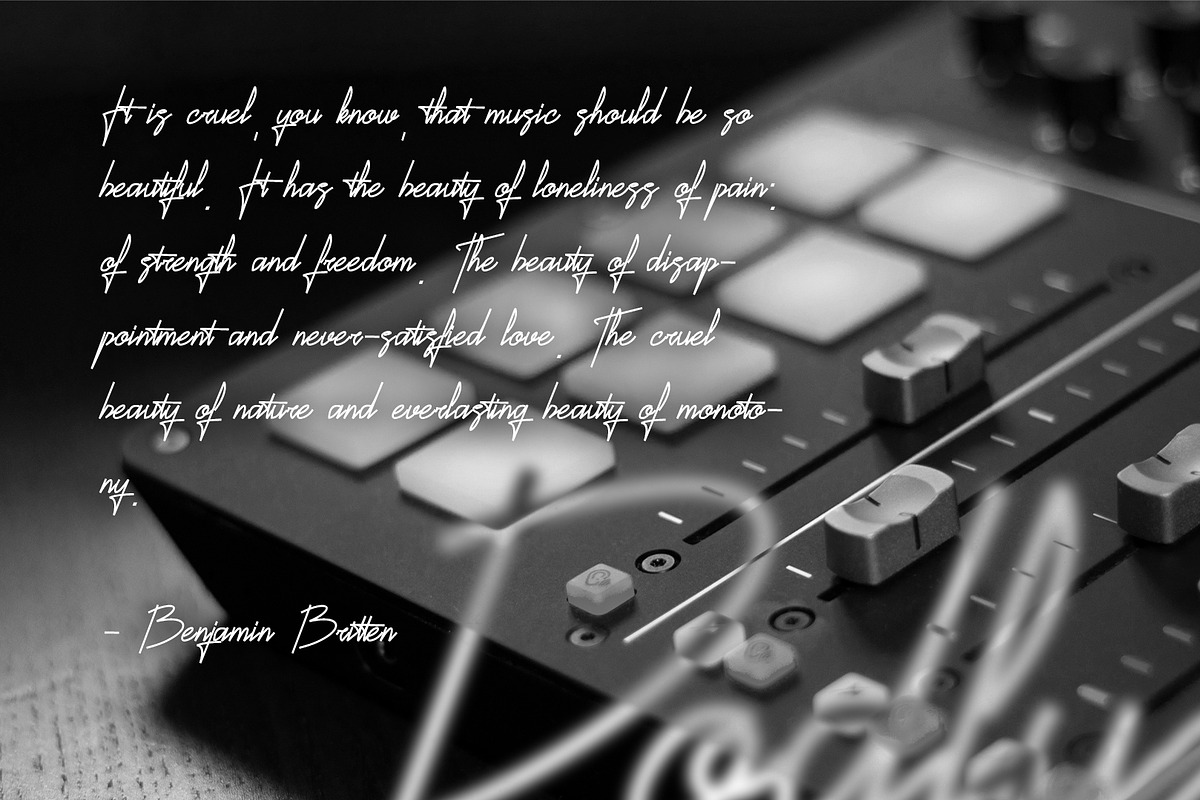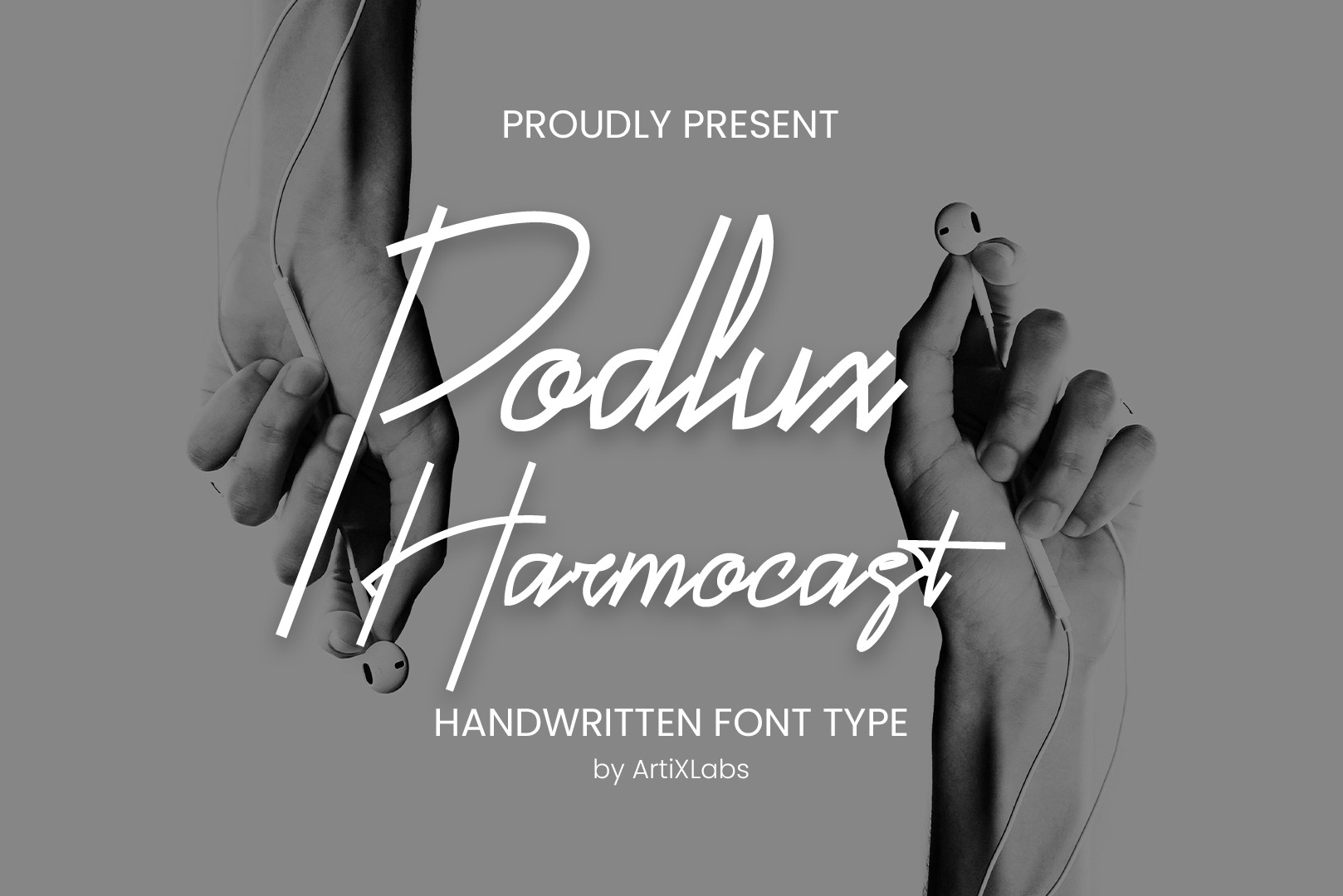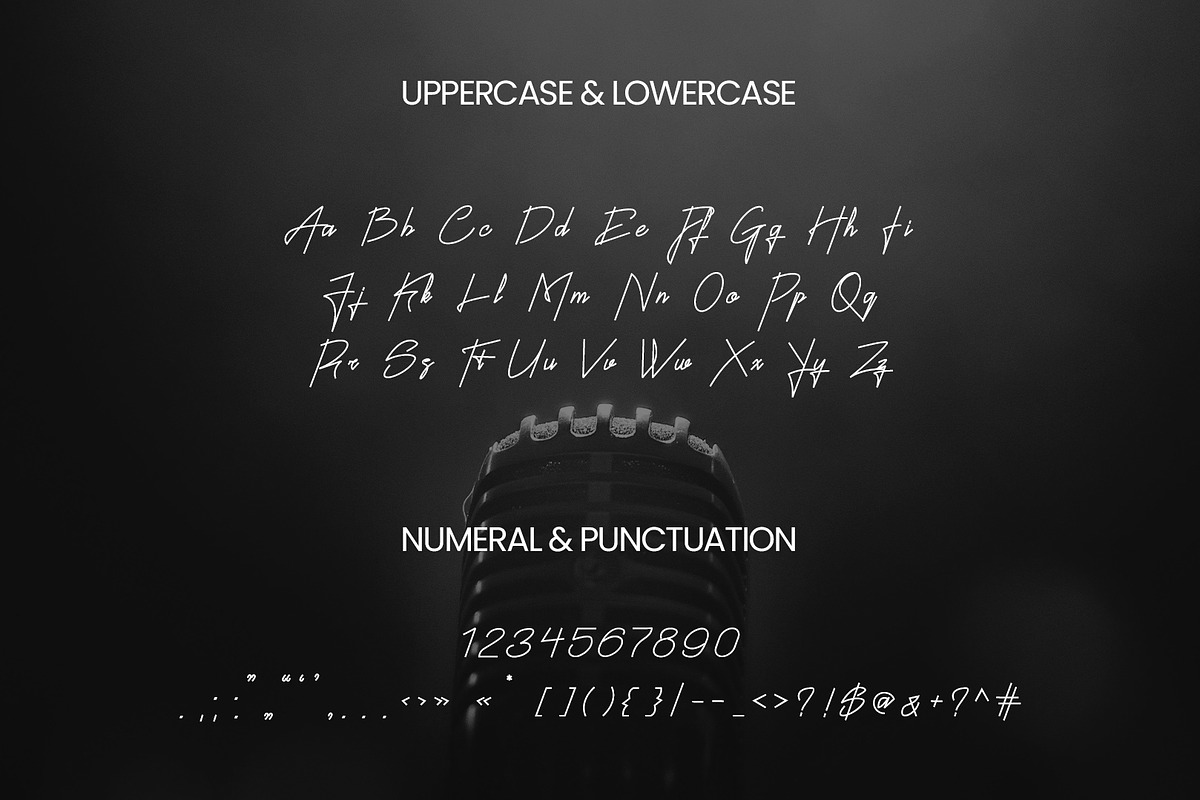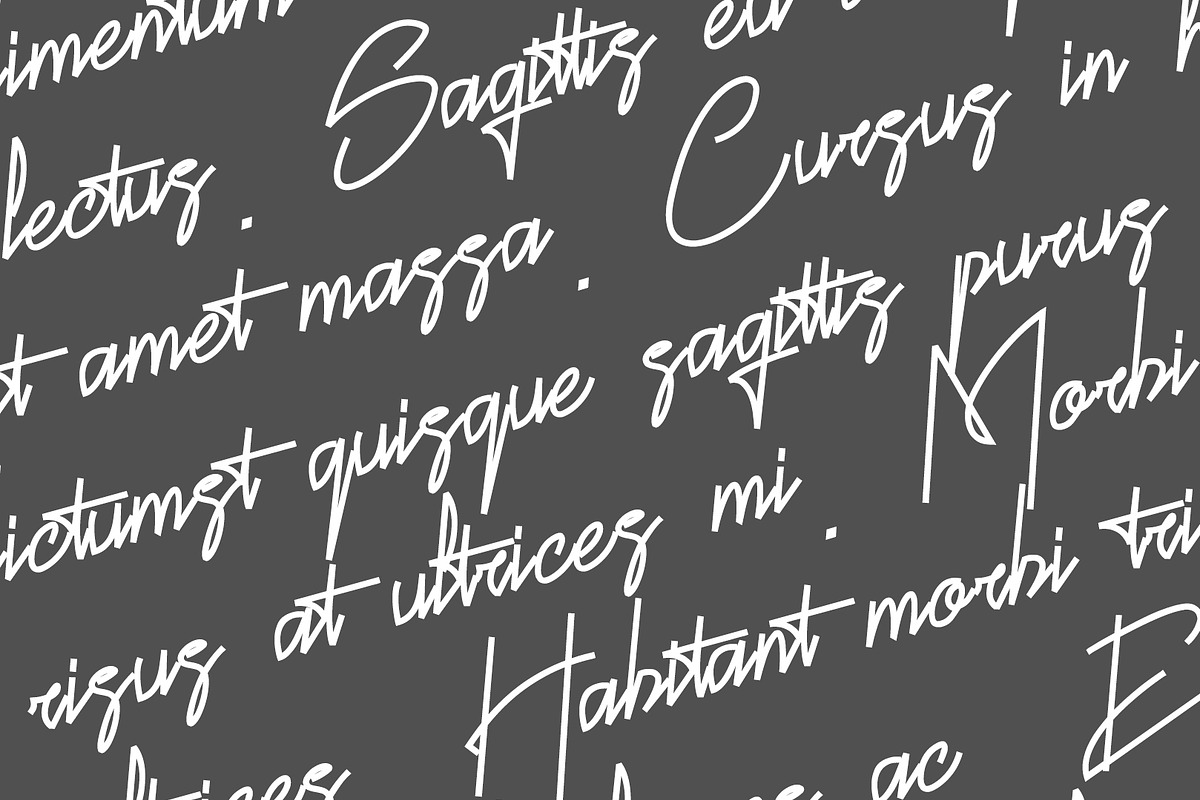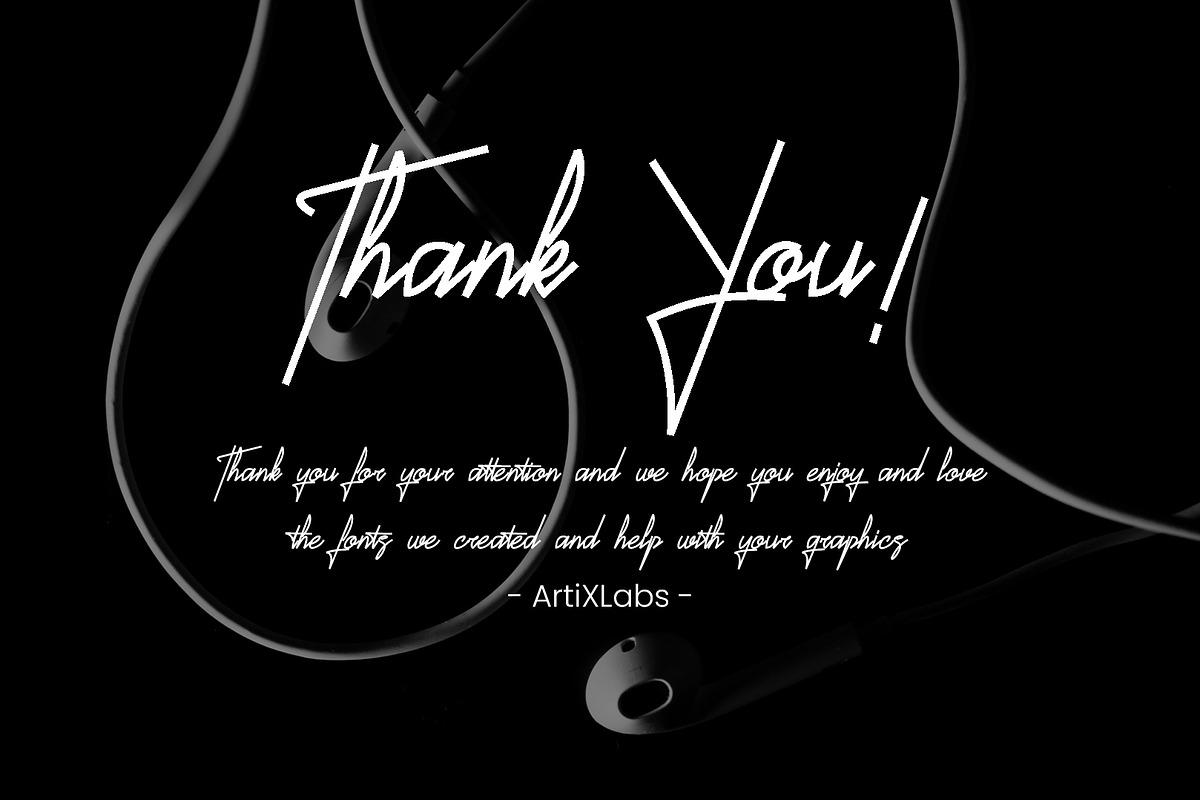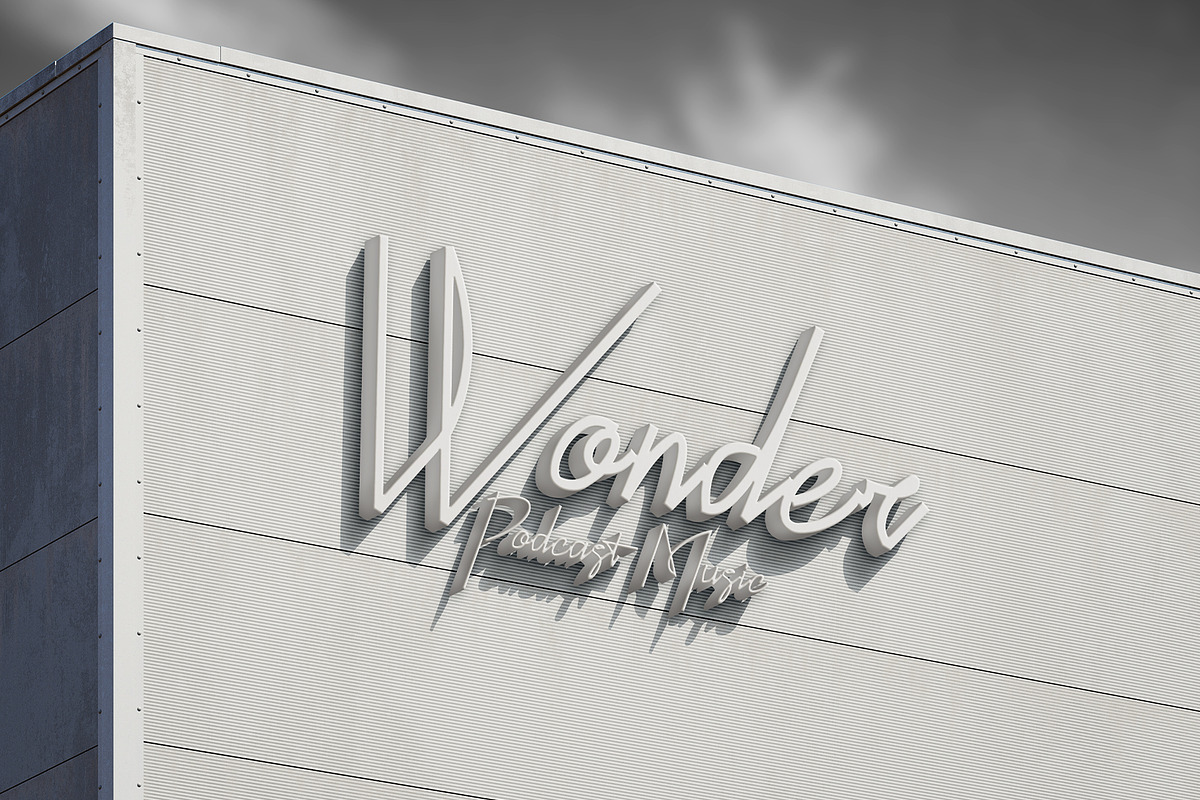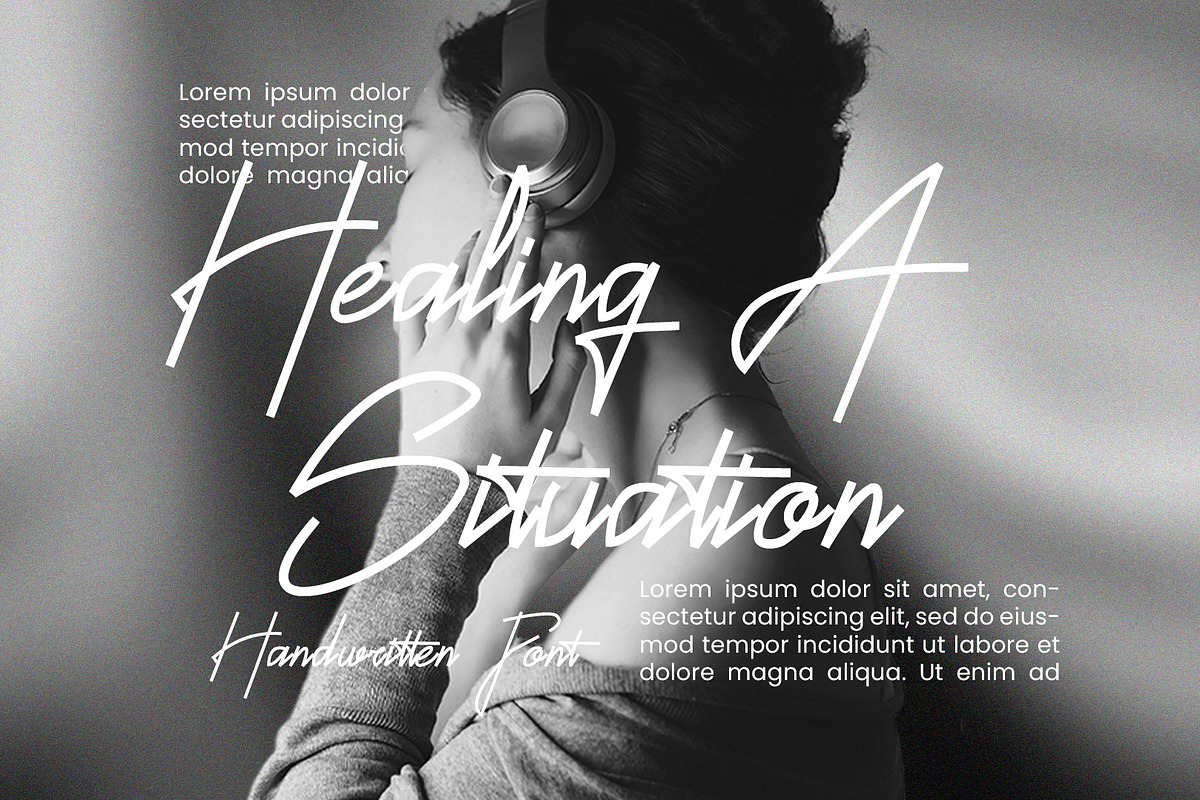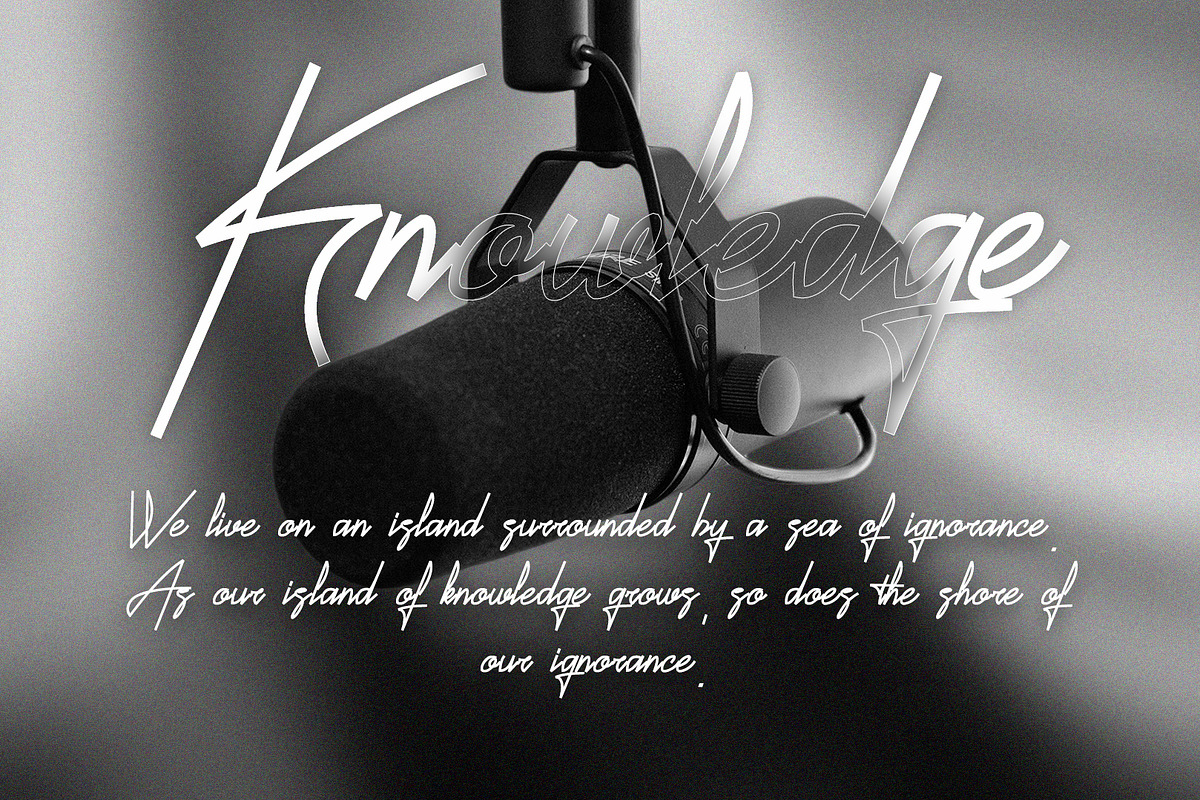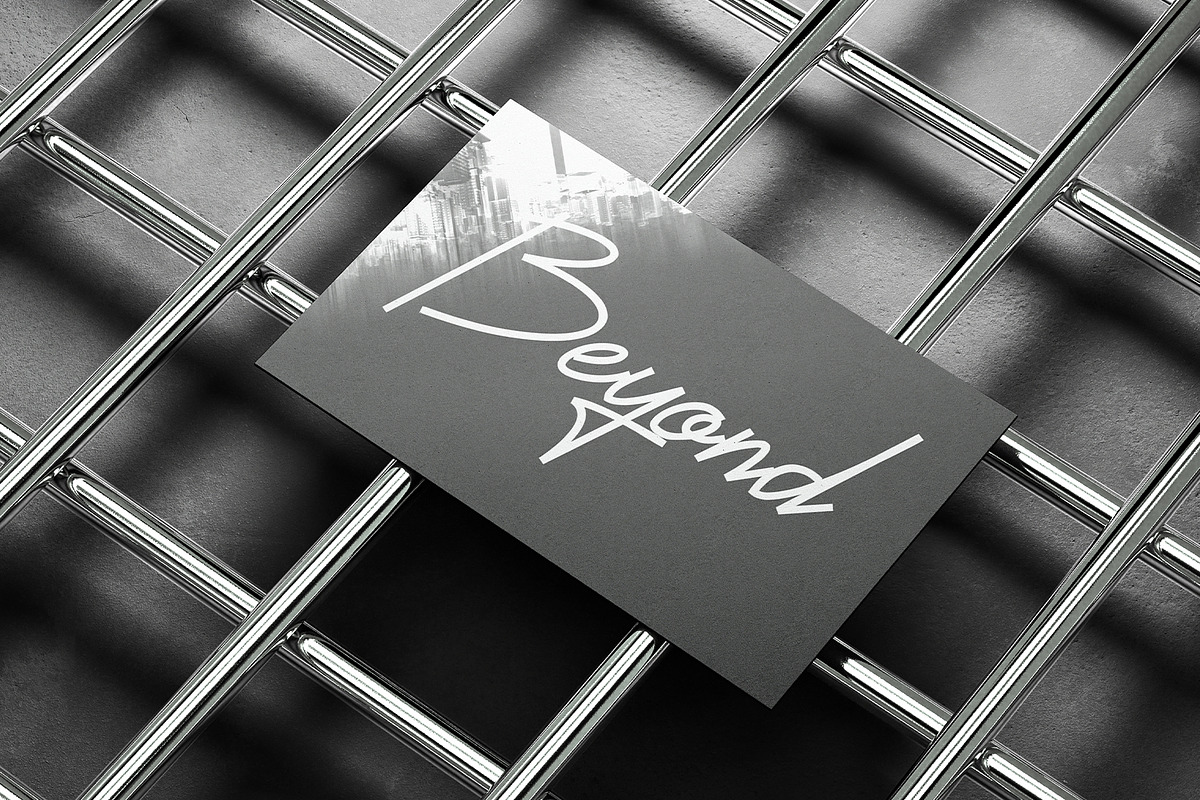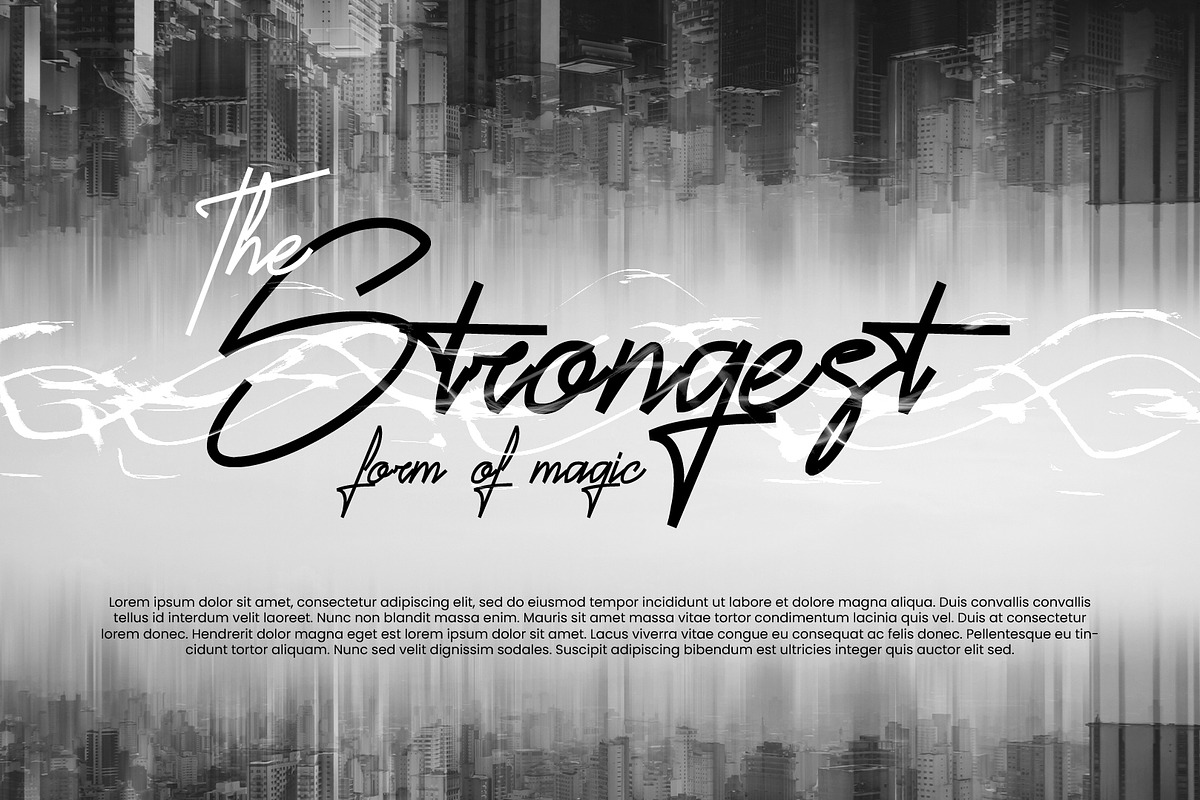
Podlux Harmocast - Handwritten Font
Introducing Podlux Harmocast - Handwritten Font Elegant Script Font for Wedding Invitations & Branding
Podlux Harmocast is a beautifully crafted handwritten script font that exudes elegance and charm. Perfect for wedding invitations, branding projects, and social media content, this font adds a personal and sophisticated touch to any design. Its natural flow and readability make it ideal for creating memorable logos, product packaging, and romantic stationery. This Font can be used for any variety of purposes, such as: Event, Birthday, Ceremony, Packaging Products, Logo Type, Branding, T-Shirt Design, Website/Blog, Headline Magazine, Brochures and also can be used for other purpose.
This Font Template contains Elegance, Stylish, Modern, Creative, Professional and Unique Concept.
- Uppercase & Lowercase letters